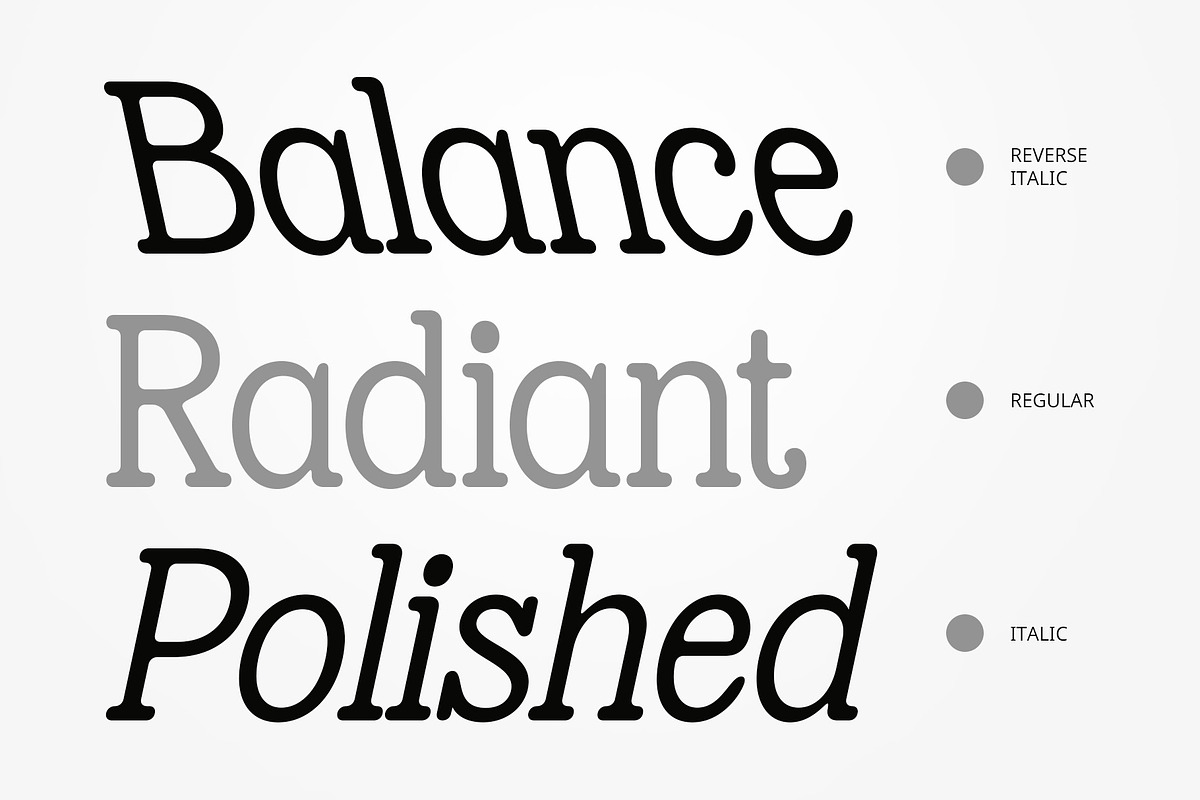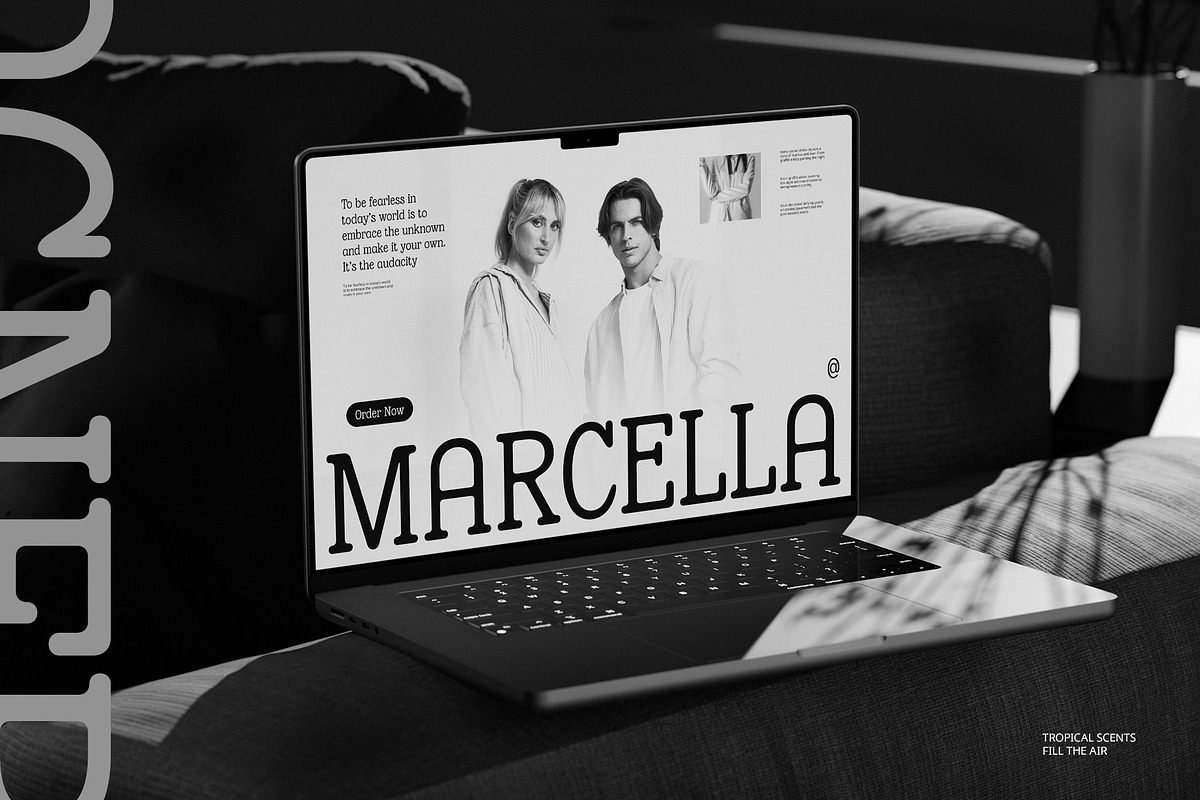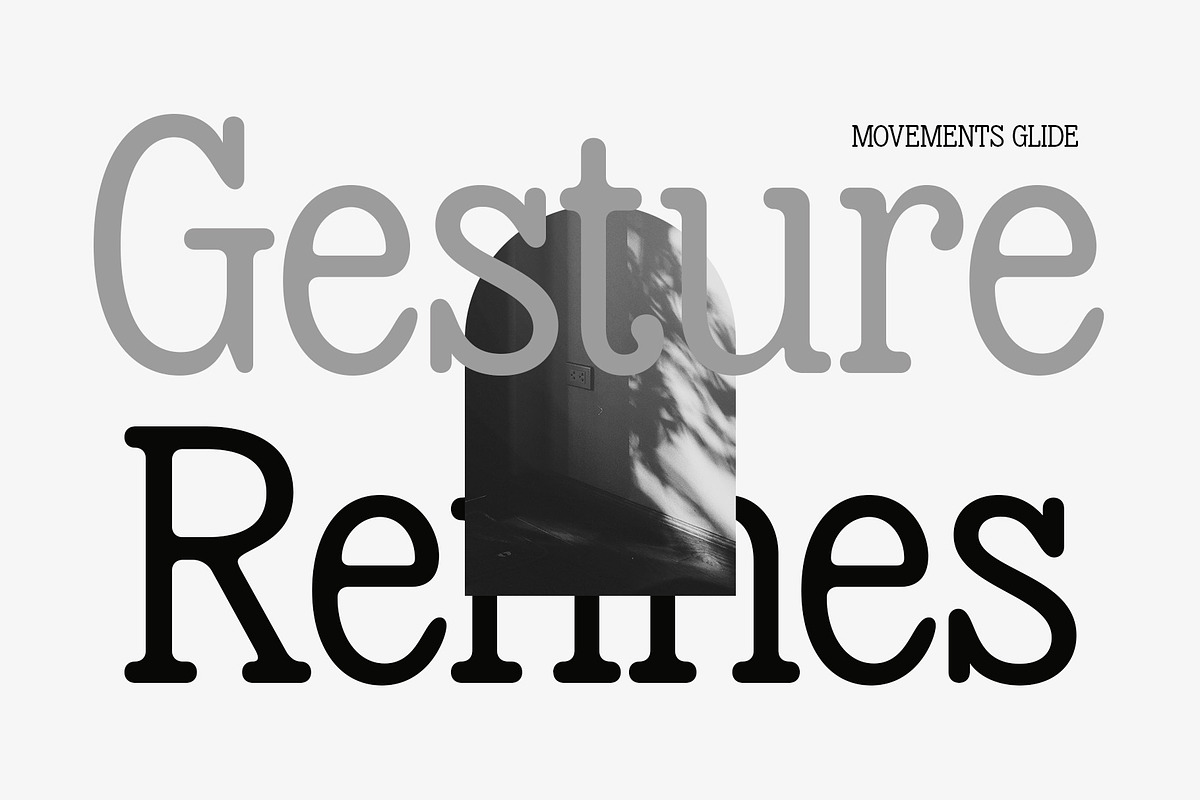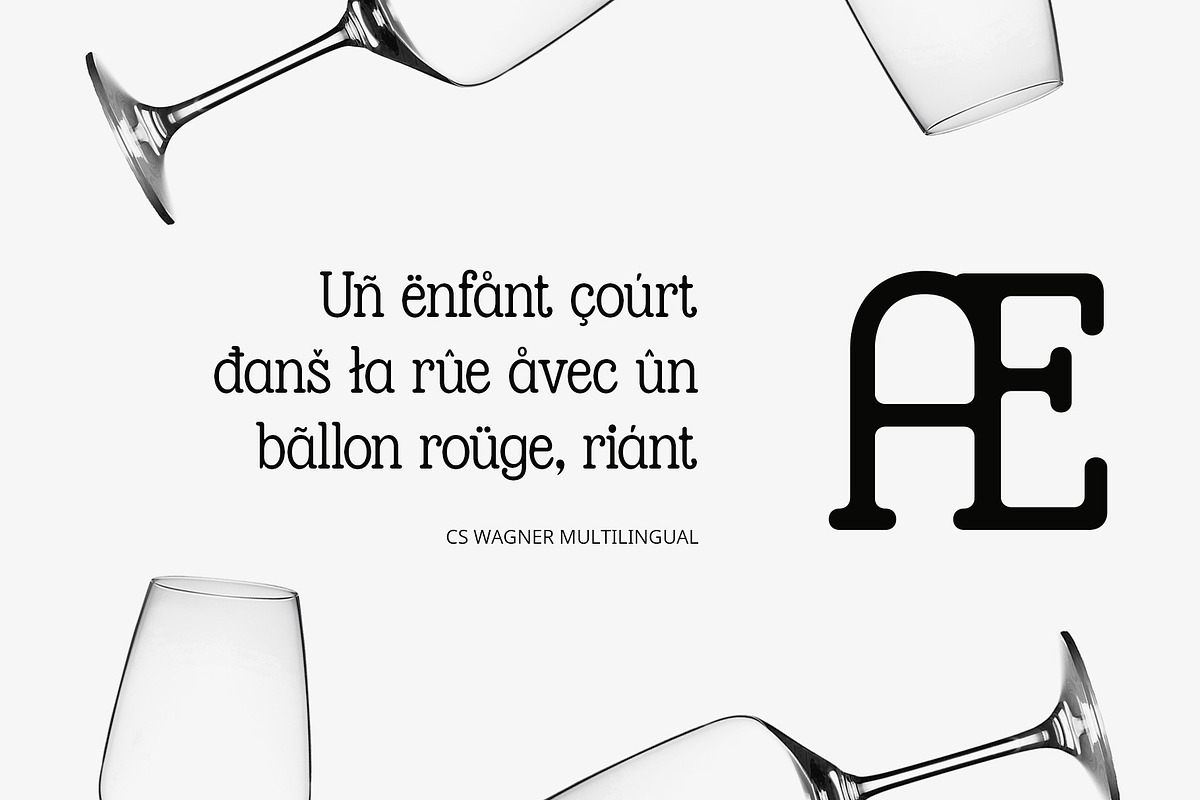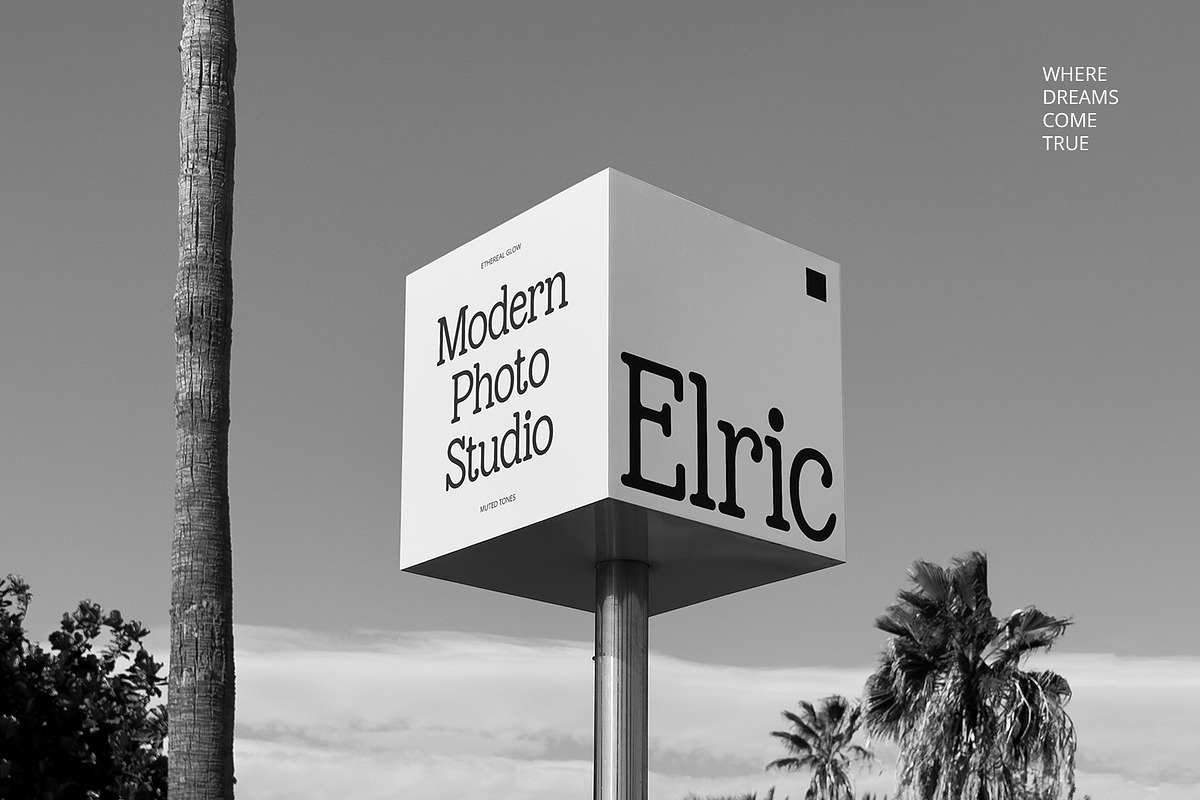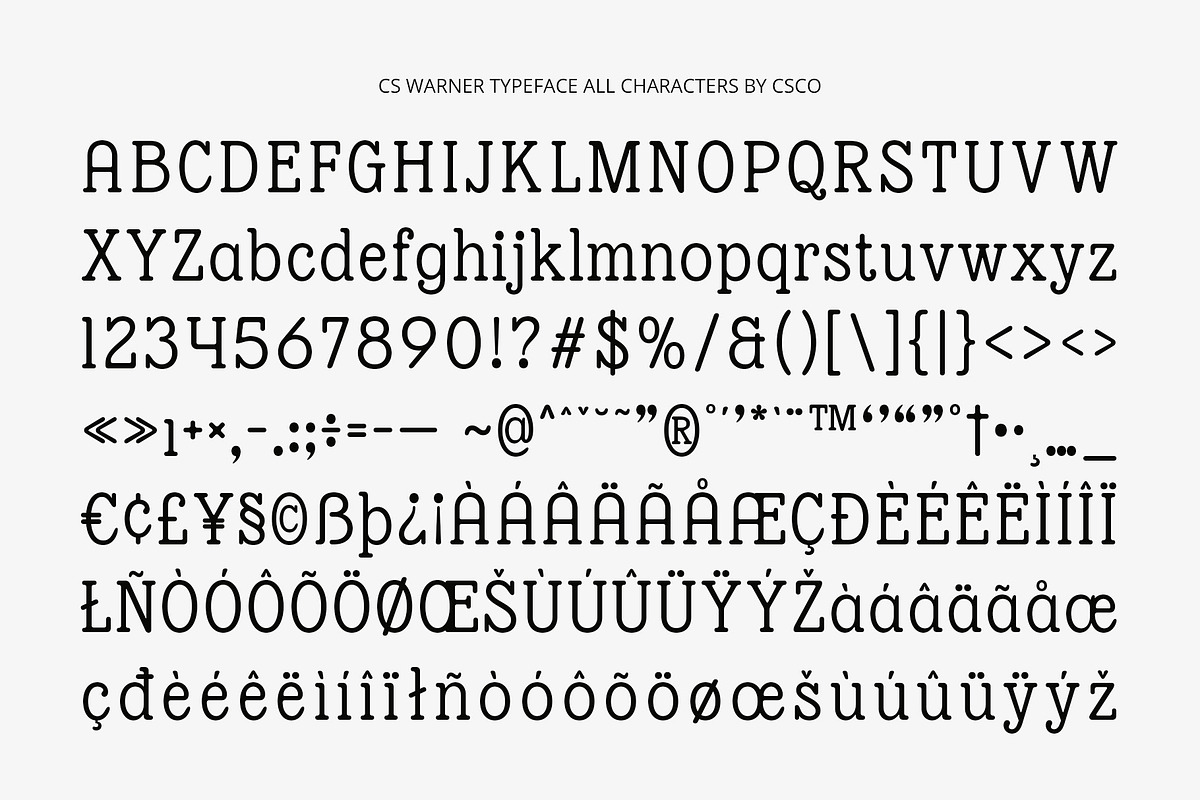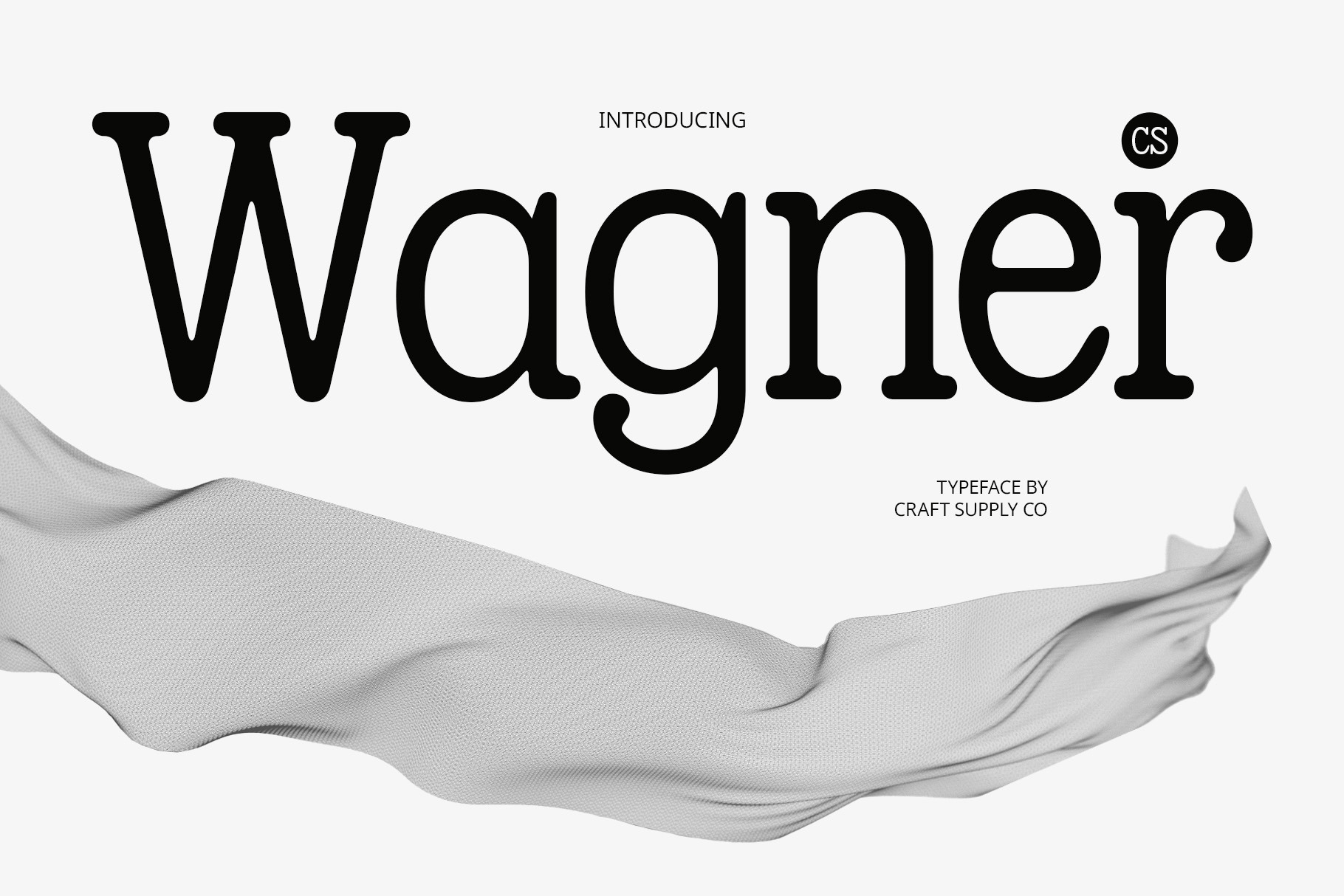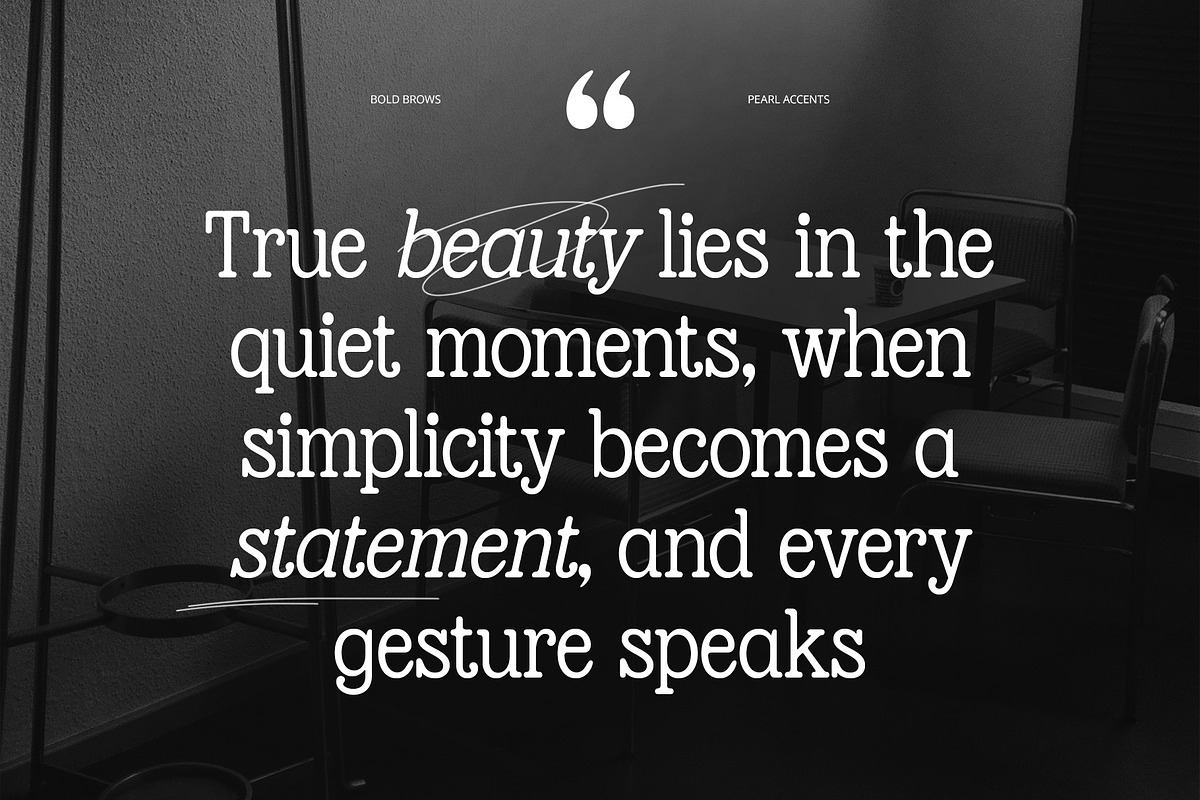
CS Wagner – Modern Font
CS Wagner – Modern Font: Classic Elegance with a Modern Touch
Modern Serif with Clean Lines and Rounded Edges CS Wagner is a modern serif font that combines clean lines with rounded edges, creating a refined and sophisticated look. Its contemporary design features smooth curves and well-balanced letterforms, making it perfect for projects that require a stylish yet approachable font.
Sophisticated and Elegant for Branding The sleek design of CS Wagner makes it ideal for luxury branding and high-end projects. Its modern serif structure, combined with the subtle warmth of rounded edges, provides an elegant and inviting feel. This font is perfect for conveying sophistication and professionalism, making it ideal for premium brands, corporate identities, and upscale editorial designs.
Versatile for Editorial and High-End Projects CS Wagner’s versatility makes it perfect for various creative applications. From editorial spreads to advertising campaigns, its clean and polished appearance brings a sense of luxury and modernity to any design. The font’s graceful serifs and rounded edges add a unique character that enhances readability and overall visual appeal.
Timeless Appeal with a Contemporary Twist CS Wagner blends contemporary and classic design elements, creating a timeless font that can adapt to any modern design project. Its elegant proportions and gentle curves give it a distinctive look that remains fresh and stylish across a wide range of applications.
- CS Wagner Regular
- CS Wagner Italic
- CS Wagner Reverse Italic